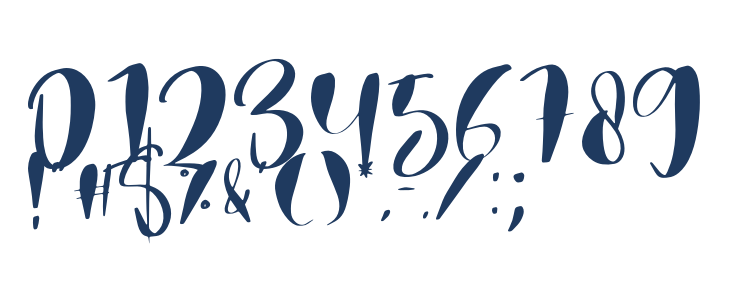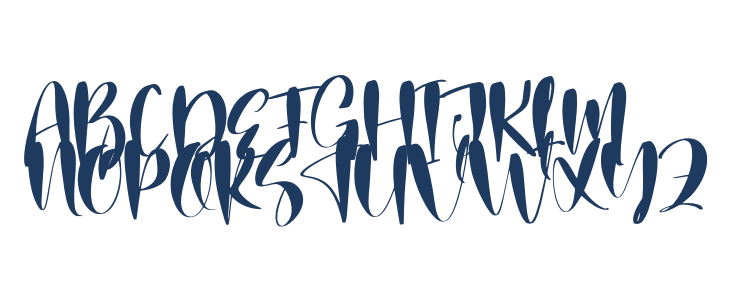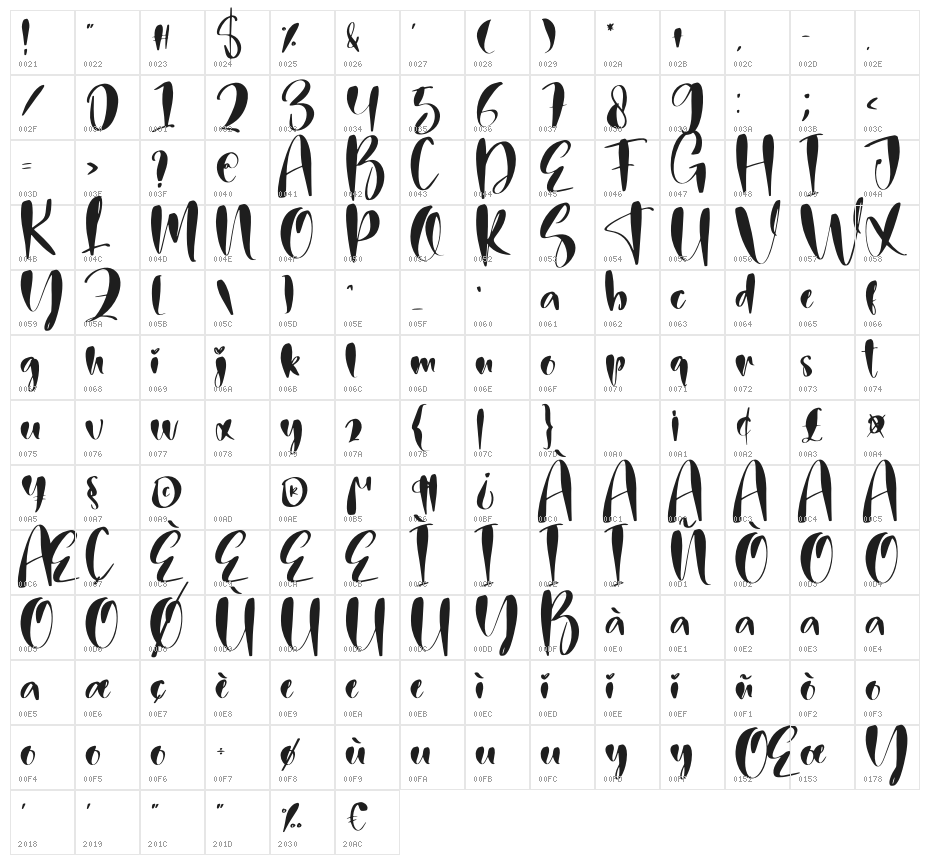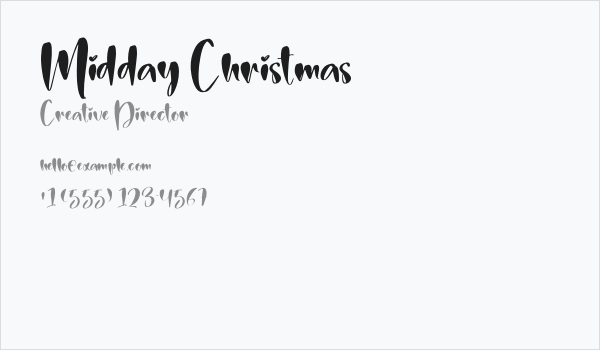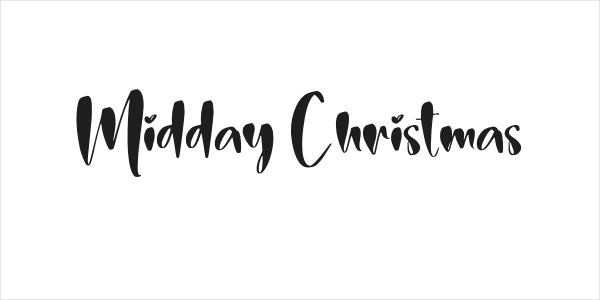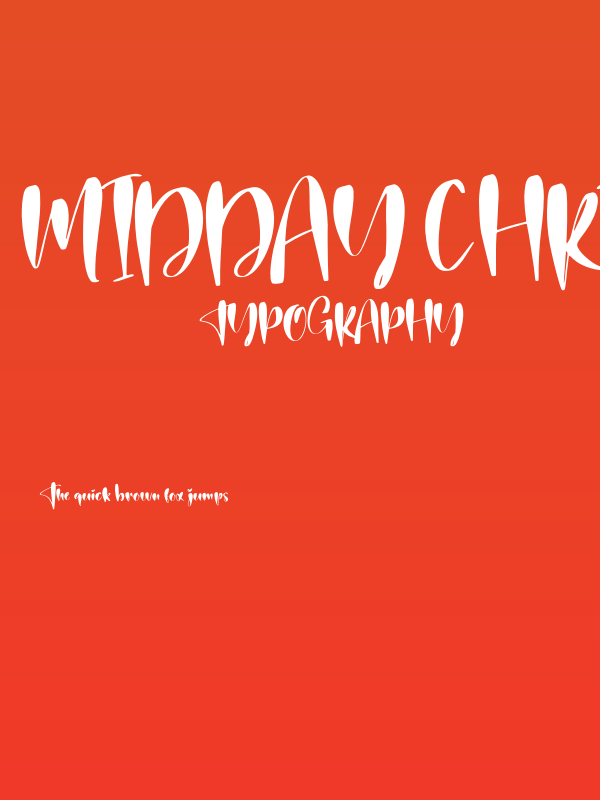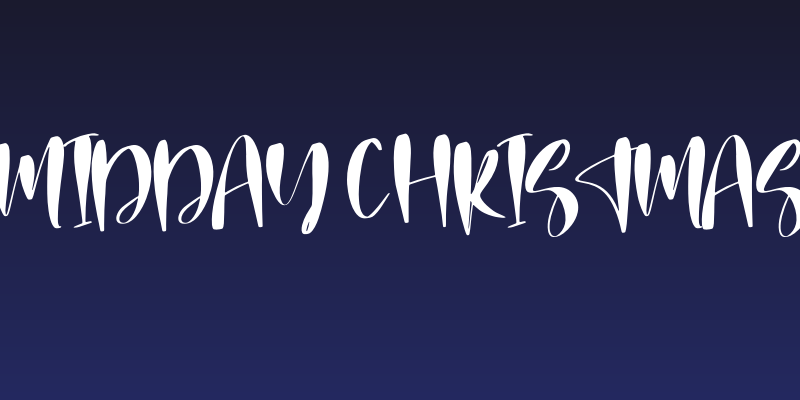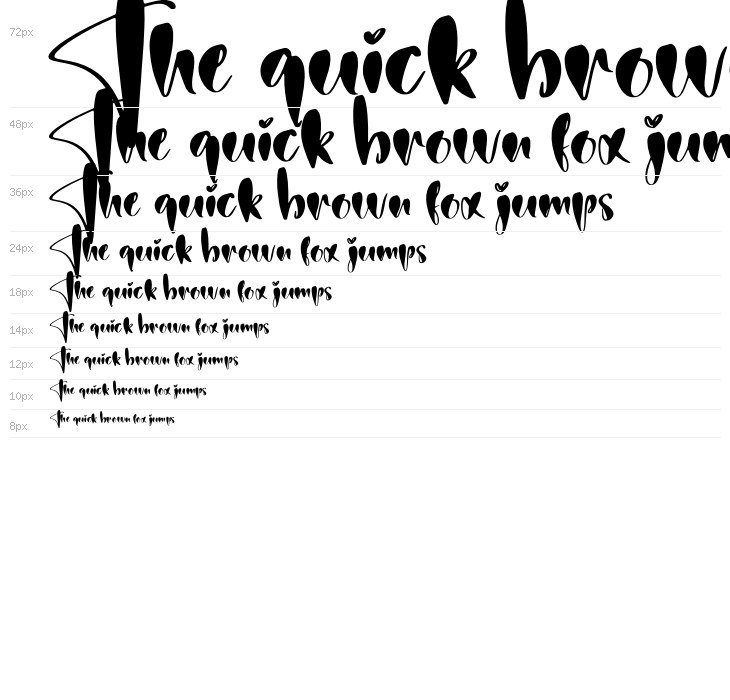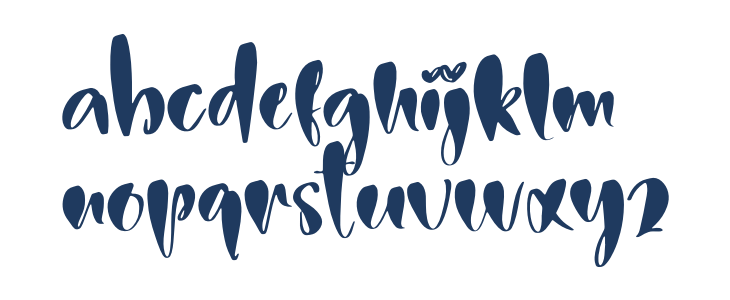
Midday Christmas Font
Midday Christmas Description
A bold, expressive handwritten script with fluid, brush-like strokes and high contrast between thick and thin lines. The characters are playful and dynamic, featuring irregular shapes and varying heights, giving a lively and informal appearance.
Overall StyleDecorative, Playful, Modern
Use CaseLogos, Headlines, Invitations, Social media graphics
Proposed ProjectsGreeting cards, invitations, branding, posters, social media graphics.